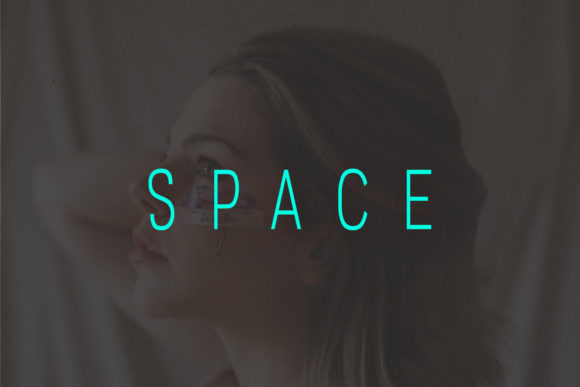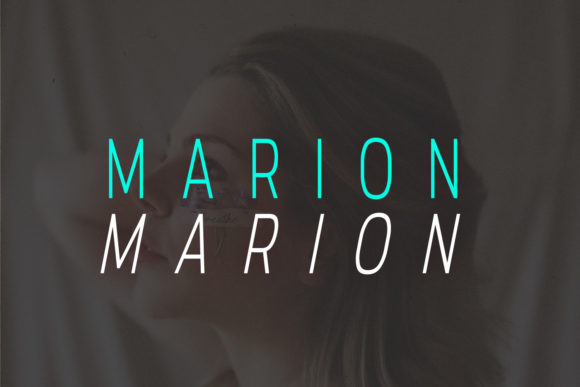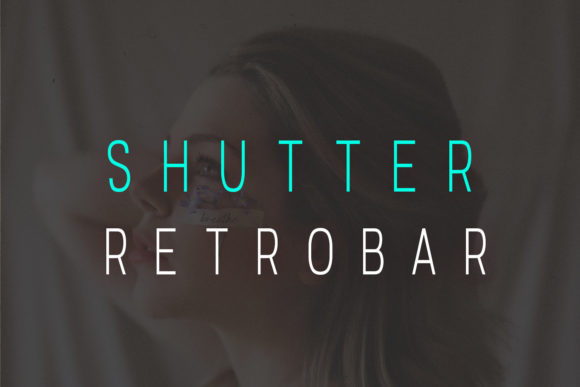
Introduction to Monork Font
As a designer, you know that moment when a project comes together and you can finally see the vision you had in your mind take shape. It’s a feeling that’s hard to describe, but it’s a mix of excitement, relief, and pride all at once. For me, that moment happened when I discovered the Monork Font. Its simple and elegant sans serif style immediately caught my eye, and I knew I had to learn more about it.
Monork Font is a game-changer for designers like you and me. Its incredibly versatile style makes it perfect for a wide range of creative projects, from logo designs to web graphics. And the best part? It’s available for free download, making it an accessible design resource for anyone. With its high-quality design and transparent background, you can be sure that your designs will look professional and polished.
Key Features of Monork Font
- High-quality design resource with a transparent background, ideal for creative projects.
- Unique, modern design with a clean and minimalist aesthetic, perfect for a variety of creative projects.
- Size: The font family includes multiple weights and styles, from Light to Bold, to suit different design needs.
- Designed to be versatile and adaptable, making it an excellent design resource for various creative projects.
Honest Review: Monork Font
As a designer, I’m always on the lookout for high-quality fonts that can elevate my creative projects. Recently, I had the chance to try out the Monork Font, and here’s my honest review.
- The Monork Font is incredibly versatile and can be used for a wide range of design projects, from digital to print.
- The font’s unique design and character set make it a great choice for creating visually appealing and engaging content.
- The font’s transparent background can be a bit tricky to work with, especially for designers who are not familiar with advanced design techniques.
- The font’s bold and italic styles are not as polished as the regular style, which can be a bit of a letdown.
Overall, I’m impressed with the Monork Font’s potential, but it’s not without its limitations. While it’s a great addition to any design library, it may not be the best choice for designers who need a more polished and consistent font.
To get the most out of Monork Font, use it in conjunction with other design elements to create a cohesive look. Experiment with different font sizes and colors to add depth and interest to your design.
Monork Font is ideal for use in logos, graphics, illustrations, and other design projects where a high-quality, unique font is needed. Its transparent background makes it perfect for use in graphics and illustrations.